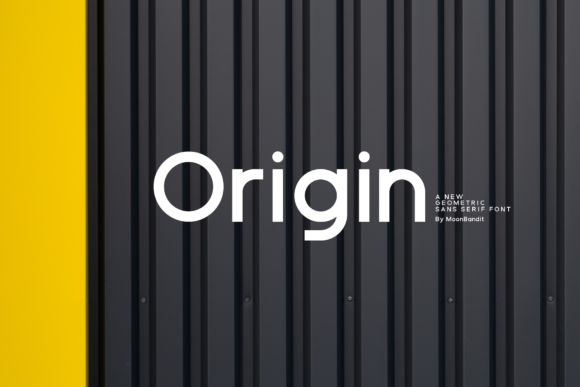
Origin: A Font of Pristine Elegance and Delicate Beauty
In a world where individuality and self-expression reign supreme, Origin emerges as a font of unparalleled grace and sophistication, its timeless sans serif form echoing the purity of clean, naked skin. This minimalist masterpiece, meticulously crafted by the talented moonbandit, invites you on a journey of creative exploration, transforming your design concepts into breathtaking works of art.
With its clean lines and delicate curves, Origin effortlessly captures the essence of modern elegance. Its unadorned simplicity grants it a versatile charm, effortlessly harmonizing with a myriad of design aesthetics. From sleek and contemporary branding to delicate and ethereal wedding invitations, Origin adapts seamlessly, adding a touch of understated luxury to your creative endeavors.
Whether you're a seasoned designer seeking to elevate your projects with a touch of timeless sophistication or a budding entrepreneur yearning for a font that embodies your brand's essence, Origin awaits you. Its intuitive design and effortless legibility make it the perfect choice for both digital and print applications, ensuring your message is conveyed with clarity and impact.
Indulge in the exquisite charm of Origin, and unveil a world of design possibilities where simplicity and elegance converge. Embrace the purity of clean, naked skin, and watch as your creative ideas blossom into stunning realities.